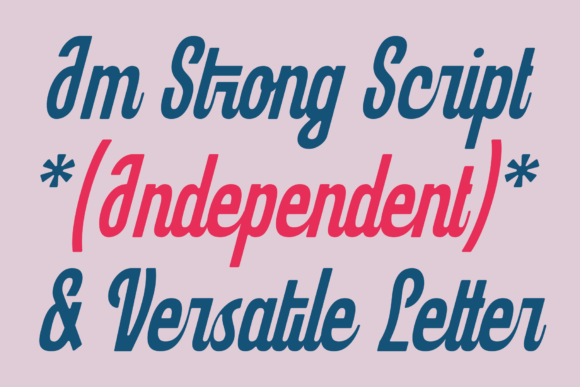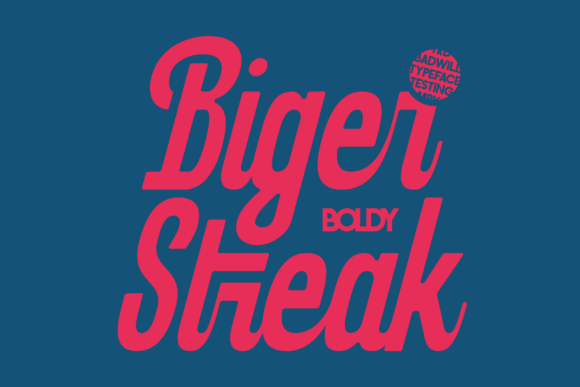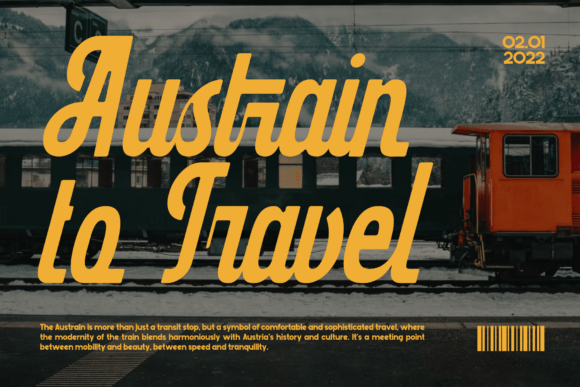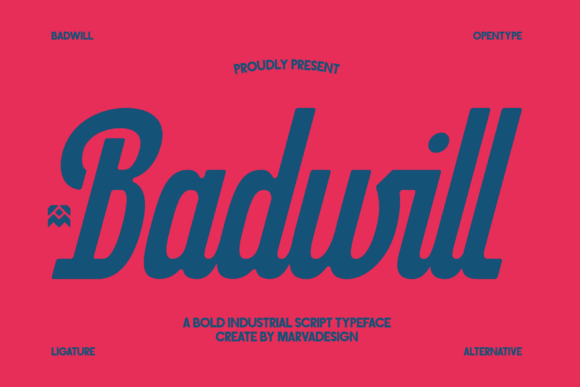
Introduction to Badwill Font
**Badwill** is a bold industrial script typeface that combines retro energy with modern confidence.
Designed with thick, powerful strokes and smooth flowing connections, this font carries a strong handcrafted personality while maintaining a clean and controlled structure The letterforms feature rounded terminals, dynamic curves, and slightly condensed proportions, creating a compact yet impactful appearance.